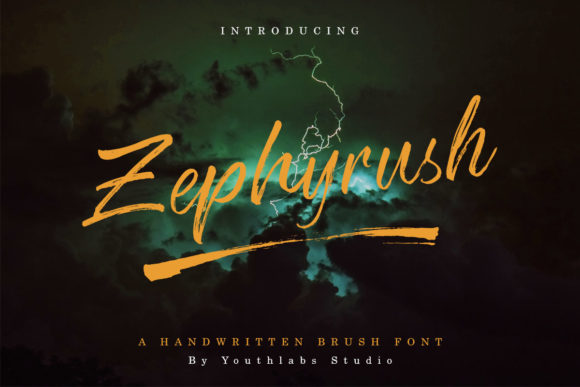
Zephyrush Font
Unlock the Secrets of Expression with Zephyrush Font - A Majestic Dry Brush Script for the Bold and Daring
In a world of mundane typography, Zephyrush Font emerges as a breath of fresh air, a symphony of strokes that dances across your designs with untamed energy. This captivating dry brush script font, crafted by the visionary minds at youthlabs, is an emblem of boldness and power, ready to transform your creative vision into a captivating spectacle.
Zephyrush Font is not just a collection of letters; it's an invitation to embark on a journey of self-expression, to break free from the shackles of conformity and embrace the untamed spirit within. Its bold strokes, reminiscent of a master calligrapher's hand, possess an organic charm that adds a touch of authenticity and character to your designs.
With Zephyrush Font, you can weave tales of adventure, ignite passions, and leave an indelible mark on the hearts of your audience. Its dynamic personality makes it the perfect choice for logos that demand attention, branding projects that seek to make a statement, and social media posts that aim to captivate and engage.
Experience the Thrill of Limitless Creativity with Zephyrush Font
Zephyrush Font is more than just a font; it's a gateway to a world of boundless creativity, where your imagination knows no bounds. Let its bold strokes guide you as you craft designs that speak volumes, designs that leave an indelible mark on the minds of those who encounter them.
Whether you're a seasoned designer seeking a font that pushes the boundaries or a novice just starting your creative journey, Zephyrush Font is your perfect companion. Its versatility knows no limits, adapting effortlessly to a myriad of design projects, from elegant invitations and eye-catching posters to dynamic social media graphics and captivating website headers.
Unleash the Power of Zephyrush Font and Transform Your Designs
With Zephyrush Font, you possess the power to transform the ordinary into the extraordinary. Its bold and confident strokes command attention, while its organic charm adds a touch of warmth and personality. Embrace the untamed spirit of Zephyrush Font and watch as your designs take on a life of their own, captivating audiences and leaving a lasting impression.